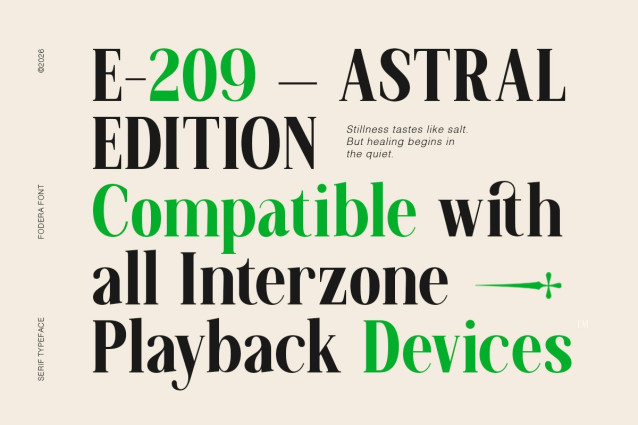
TG Fodera Font
TG Fodera Font is a sophisticated serif typeface that blends timeless elegance with modern flair. Its high-contrast strokes, sculptural letterforms, and sharp serifs evoke a sense of luxury and editorial boldness — ideal for fashion, branding, and lifestyle design.
Crafted with care and precision, Fodera includes:
• Beautiful ligatures for seamless letter combinations
• Elegant alternates to add expressive typographic flair
• Strong vertical rhythm and optical balance
• Single weight with refined proportions for clear legibility
From magazine spreads and lookbooks to boutique logos and beauty packaging, Fodera brings a sense of drama, refinement, and visual harmony to every layout.